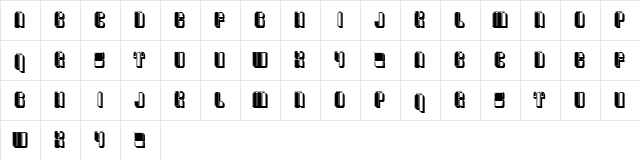
Tragedy Regular
Design Context for Tragedy Typeface
Tragedy is a composed and adaptable typeface that performs quietly and consistently across a wide range of design contexts.